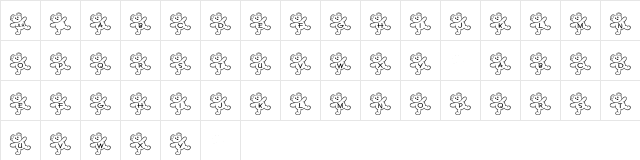
JLR Teddy Bear Regular
Design Context for JLR Teddy Bear Typeface
JLR Teddy Bear is a composed and adaptable typeface that performs quietly and consistently across a wide range of design contexts.